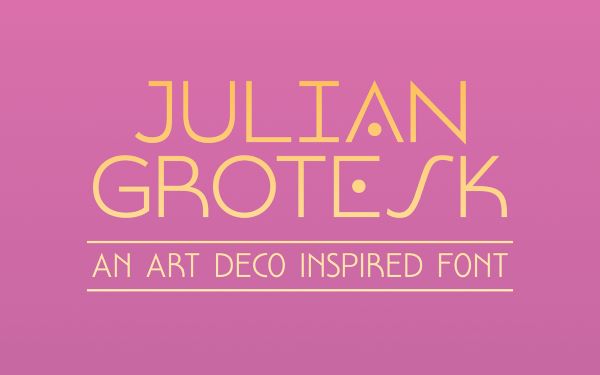
Julian Grotesk Font
Julian Grotesk by Simon Dunford is a typeface with a specific and characterful cultural origin — named after Académie Julian, the influential Parisian art school attended by several celebrated painters and lettering artists of the late 19th and early 20th centuries. Its defining structural feature is a design in two widths that creates an inherent rhythmic variation across a word or line, evoking the kind of deliberate optical irregularity that was a hallmark of skilled hand-drawn lettering during the Art Deco era. Released under an open font licence for free personal and commercial use.
Julian Grotesk is a distinctive Art Deco font in our free font collection, designed by Simon Dunford — a type designer based in Stratford, Ontario, Canada, whose work engages thoughtfully with typographic history while producing letterforms that remain immediately usable in contemporary design contexts. Browse our full library of free fonts and discover more distinctive typefaces crafted by independent designers around the world.